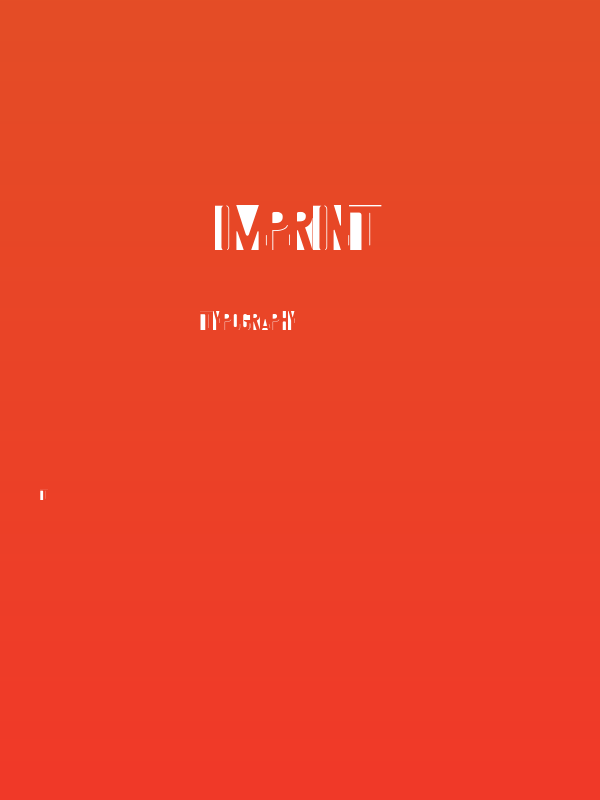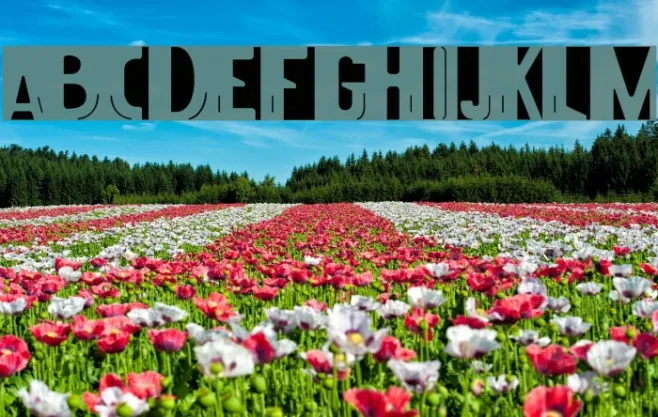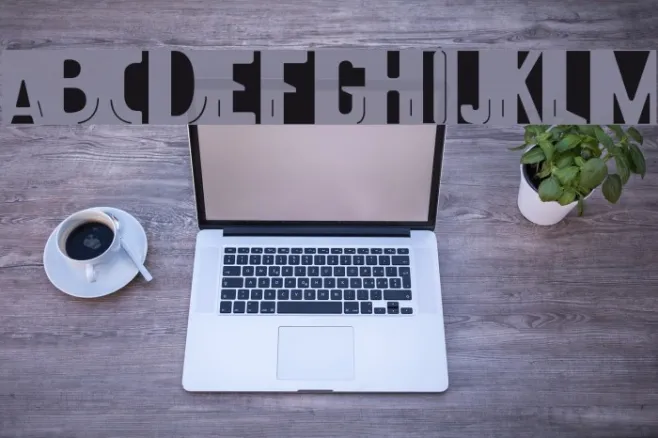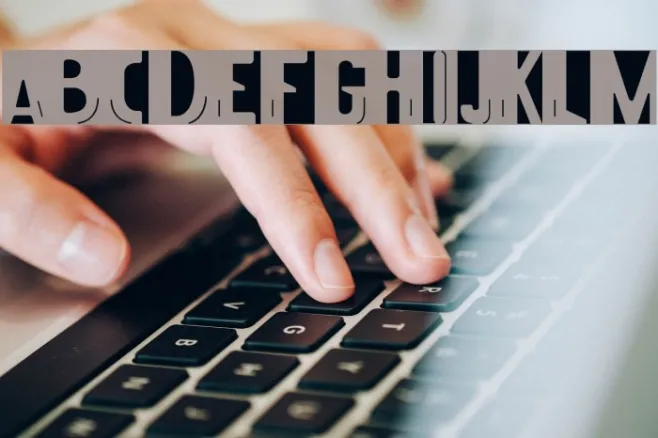
imprint Font
imprint Description
This font features a bold and striking design with a stencil-like appearance. Each character is crafted with distinct cutouts, creating a sense of movement and dynamism. The uppercase letters are particularly impactful, with strong vertical and horizontal lines that give them a commanding presence. The lowercase letters maintain the same boldness, ensuring consistency across the typeface. The numbers and special characters are equally well-designed, making this font versatile for various applications. Its unique style makes it stand out, perfect for projects that require a modern and edgy look.